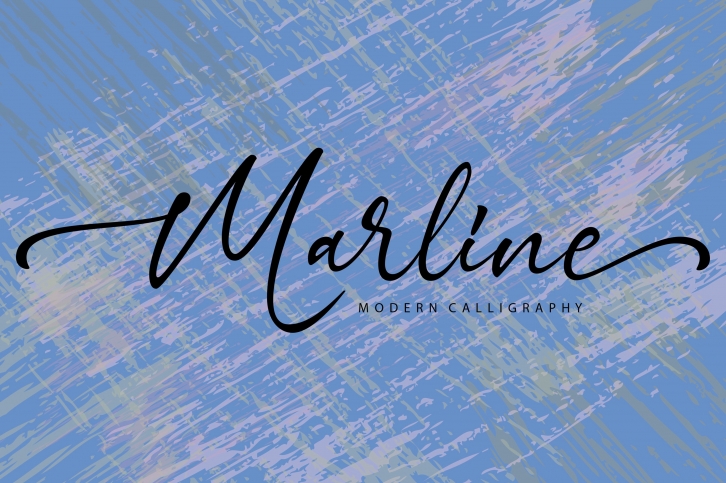
Introducing Marline Script - a new fresh & modern script with a sweet calligraphy-style, decorative characters! So beautiful for logos, invitation like greeting cards, branding materials, business cards, quotes, posters, and more!
Marline come with 422 glyphs. The alternative characters were divided into several OpenType features such as Stylistic Sets, Ligature, and Swash. The OpenType features can be accessed by using OpenType savvy programs such as Adobe Illustrator and Adobe InDesign.